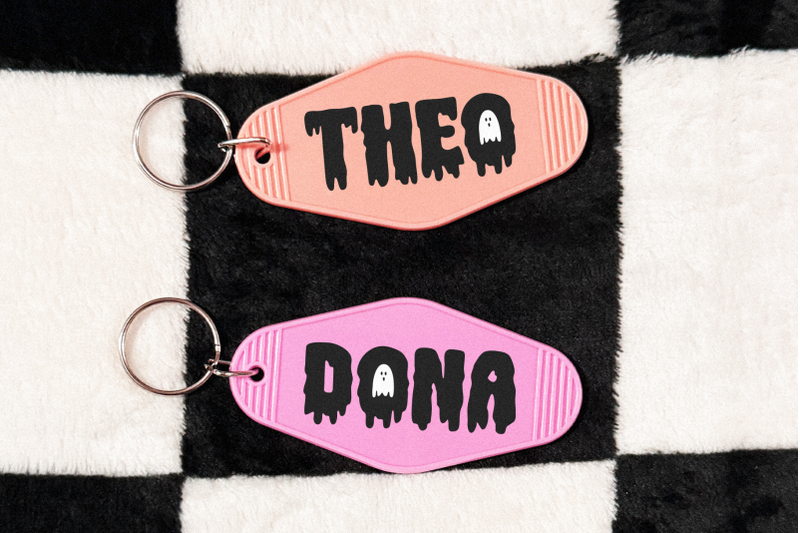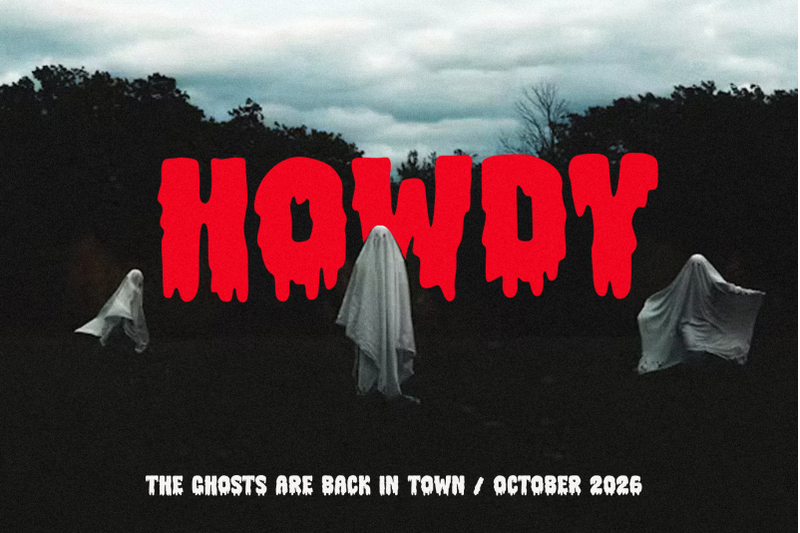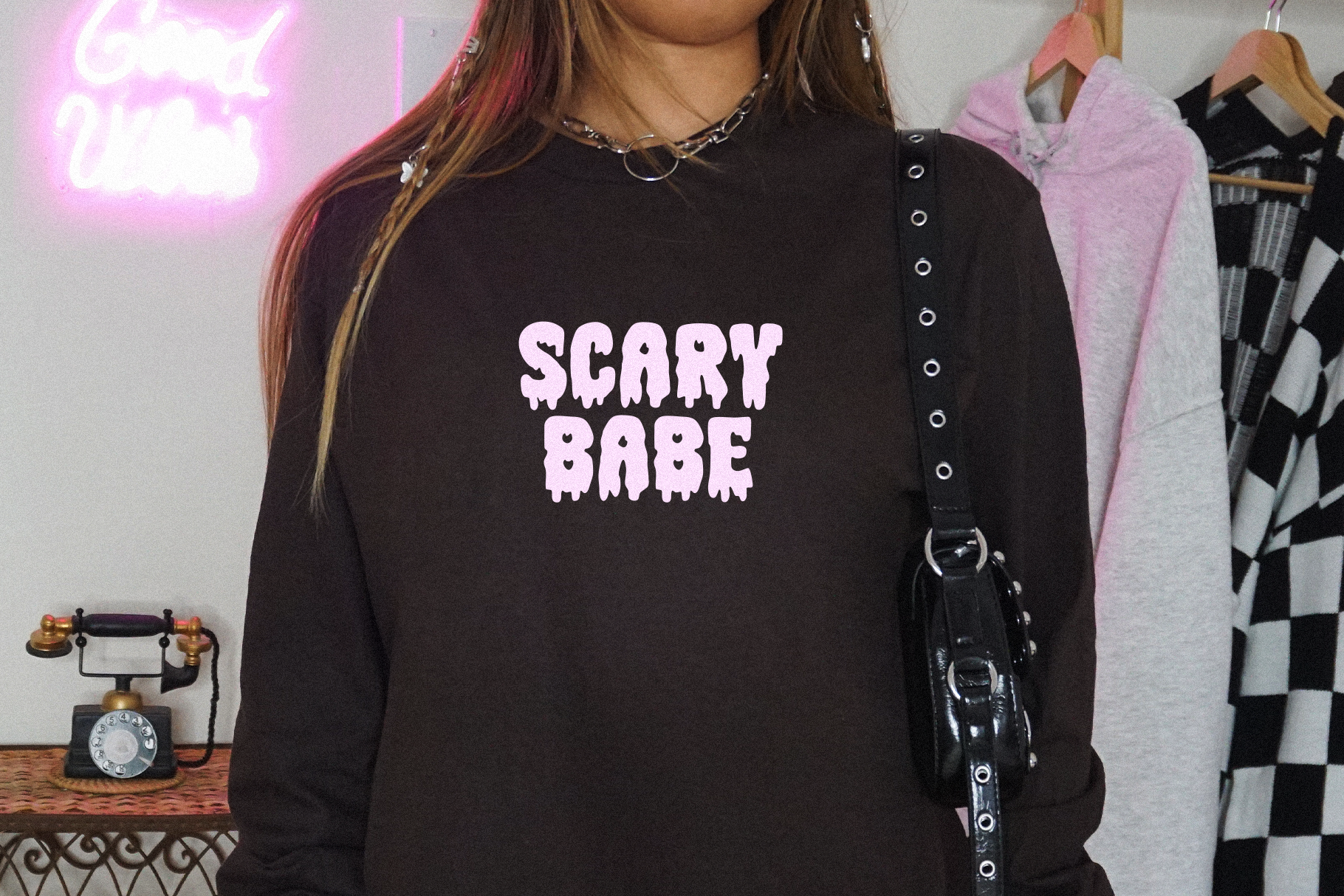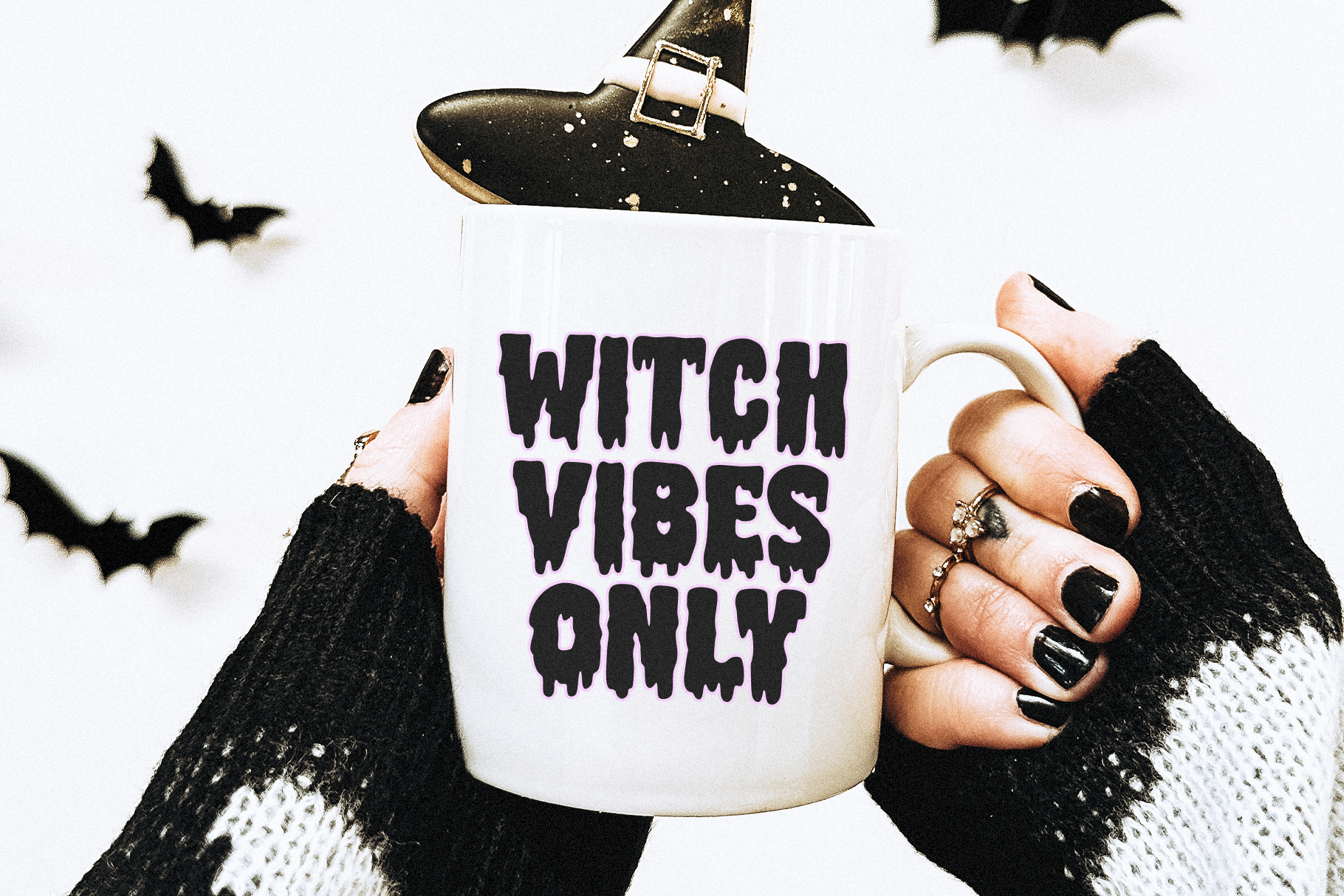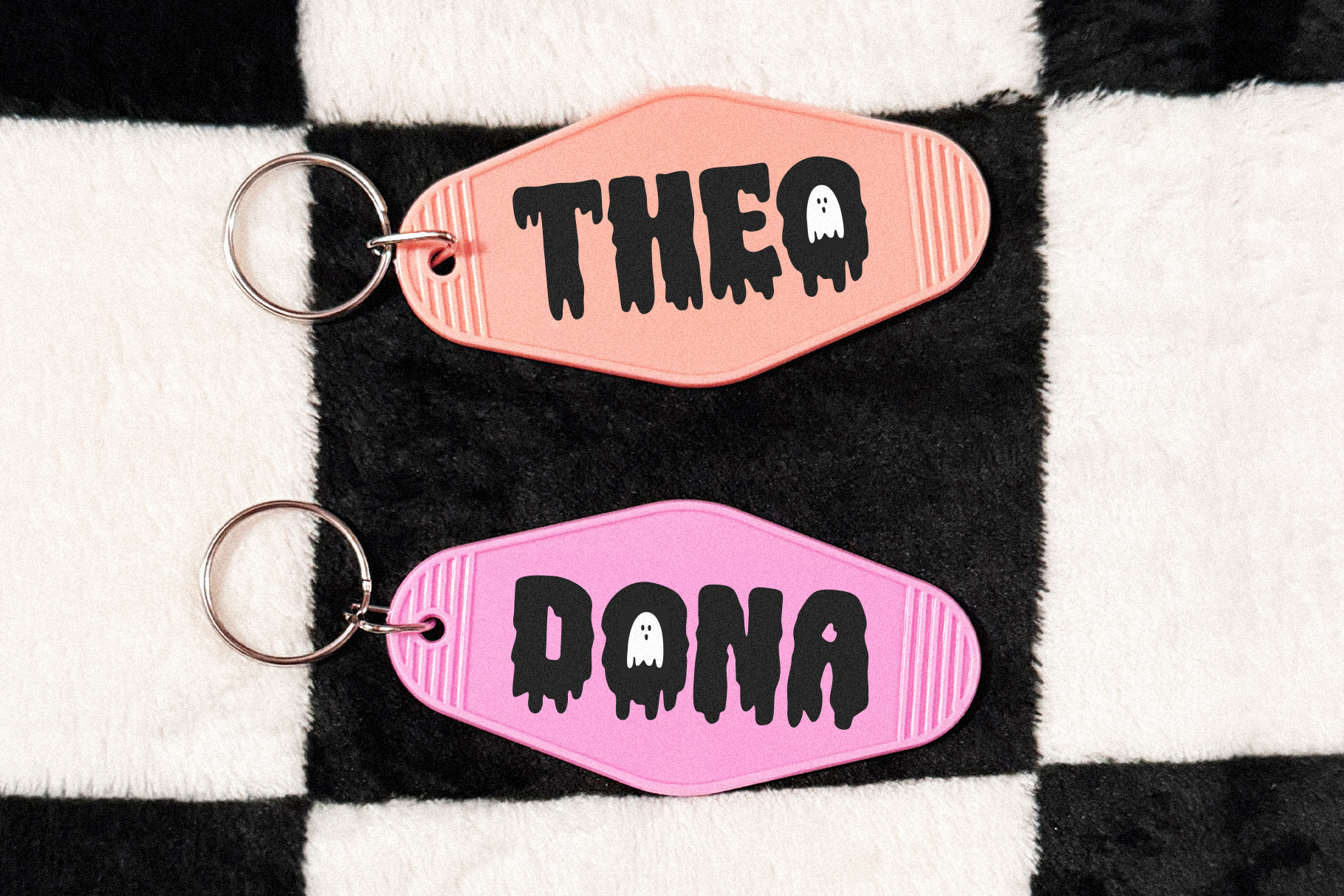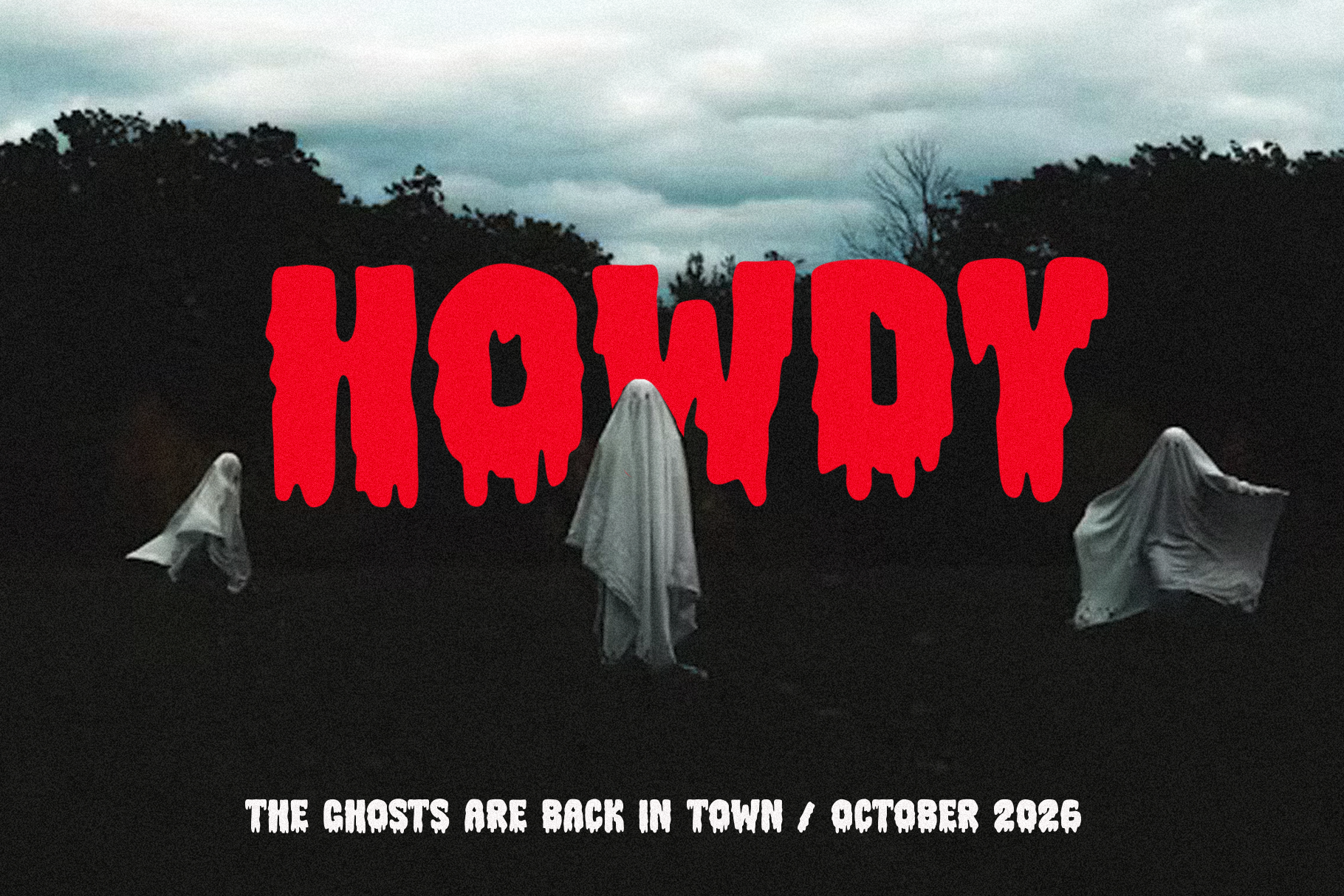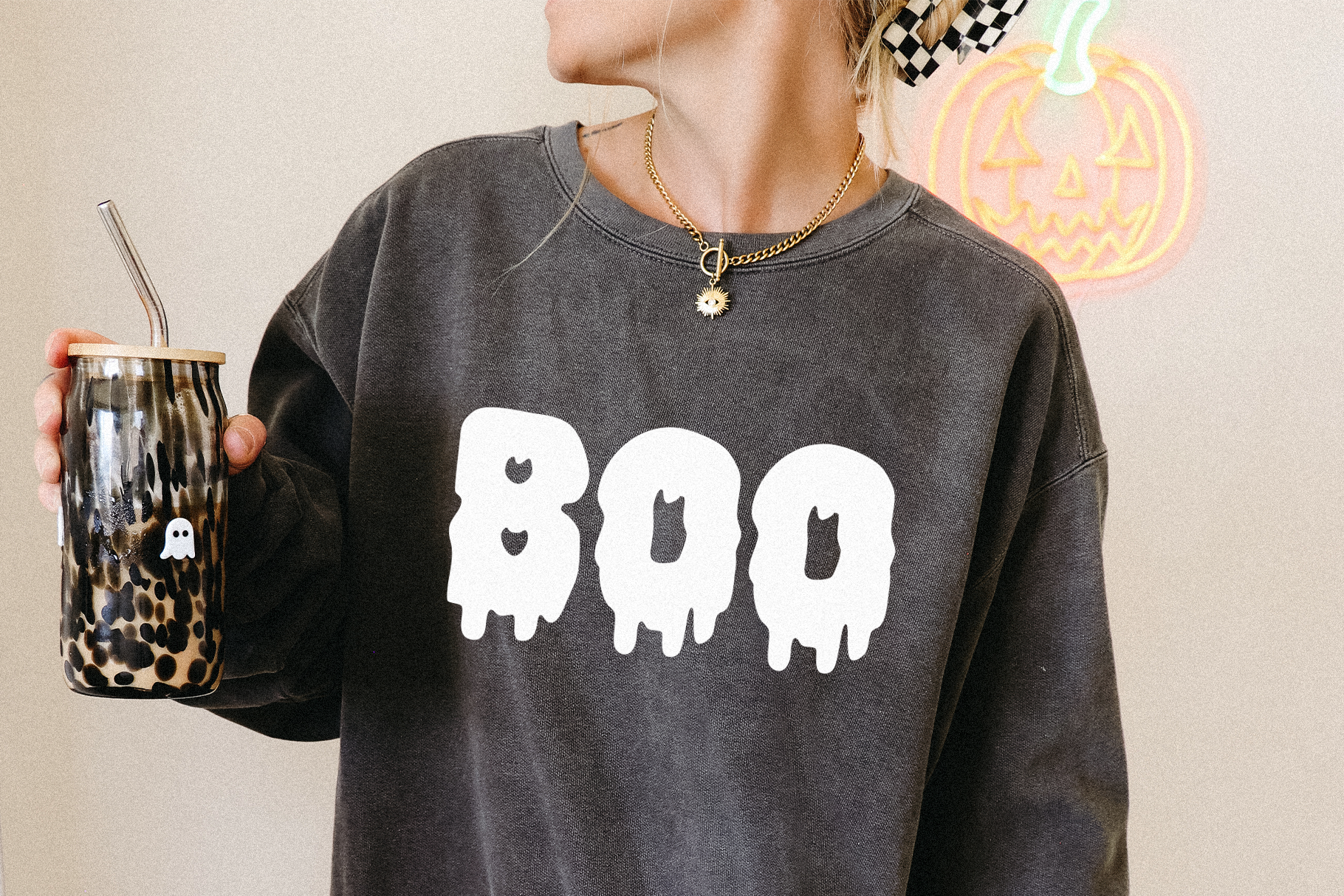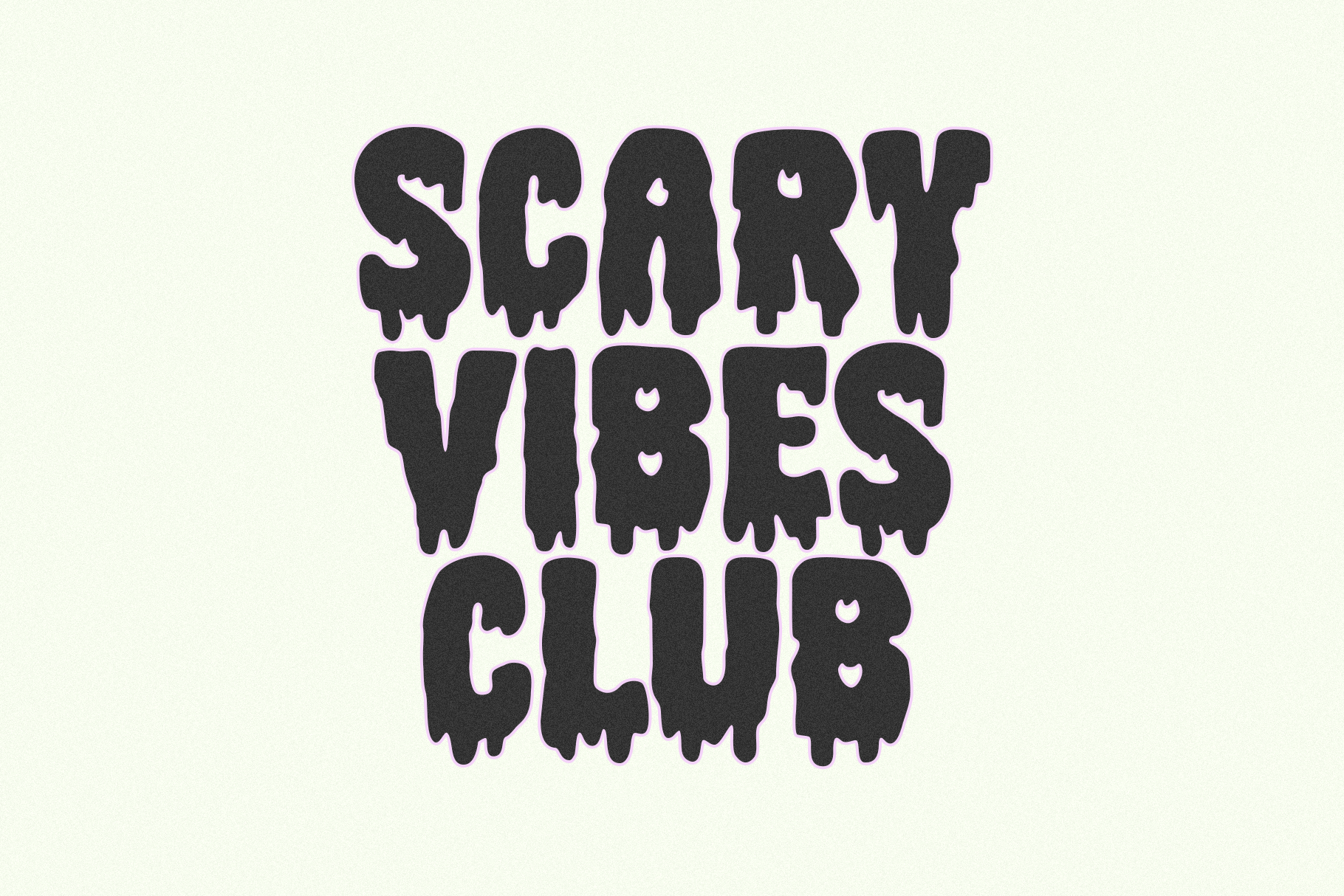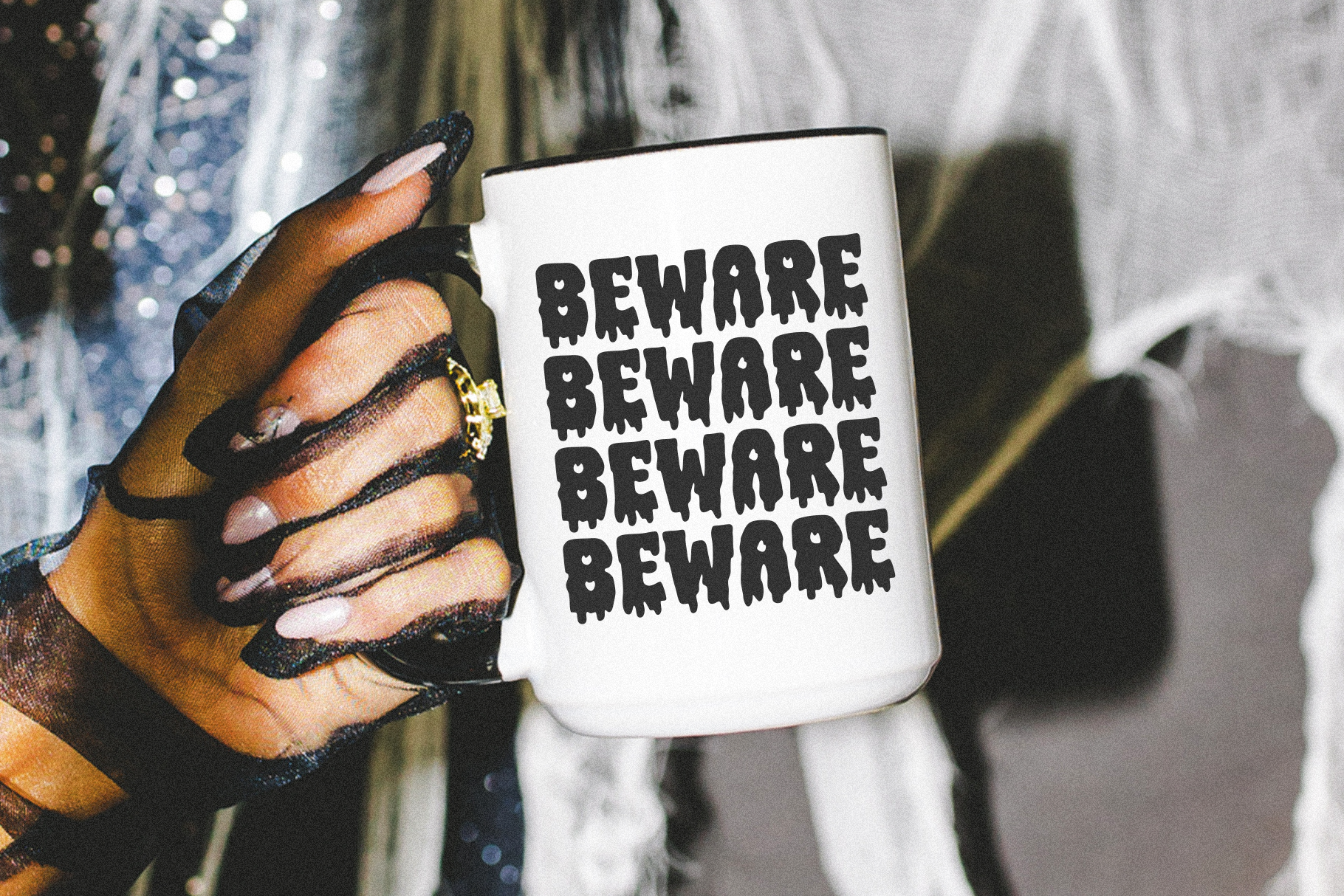
Fear Land - Spooky Halloween Font
Fear Land is a fun halloween-themed font with dripping letters!   Includes capital letters only. Numbers and symbols included.   ( use the asterisk * key to access the ghost )   Fear Land is perfect for cricut projects, canva, halloween shirts, svg designs, logos, invitations, halloween decor, procreate, greeting cards, posters, stickers, lasers and more!   Thank you!